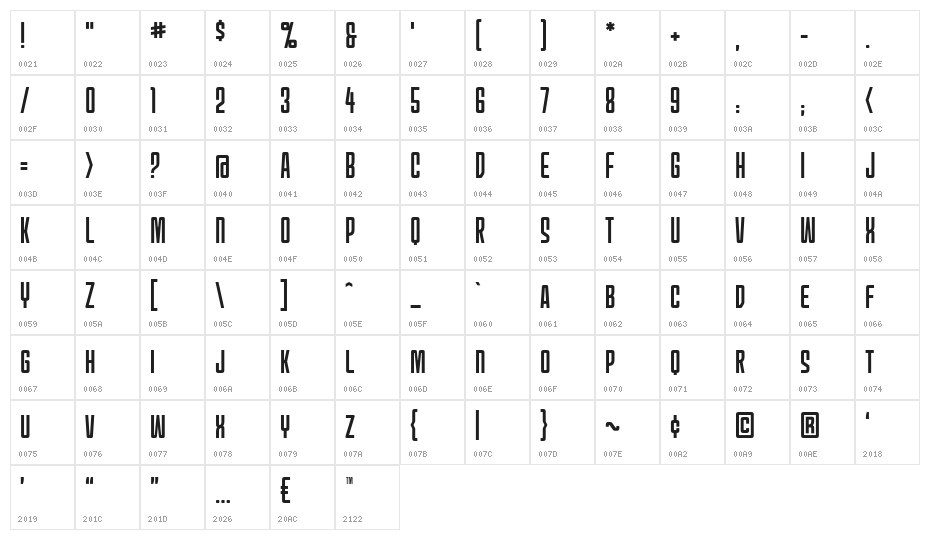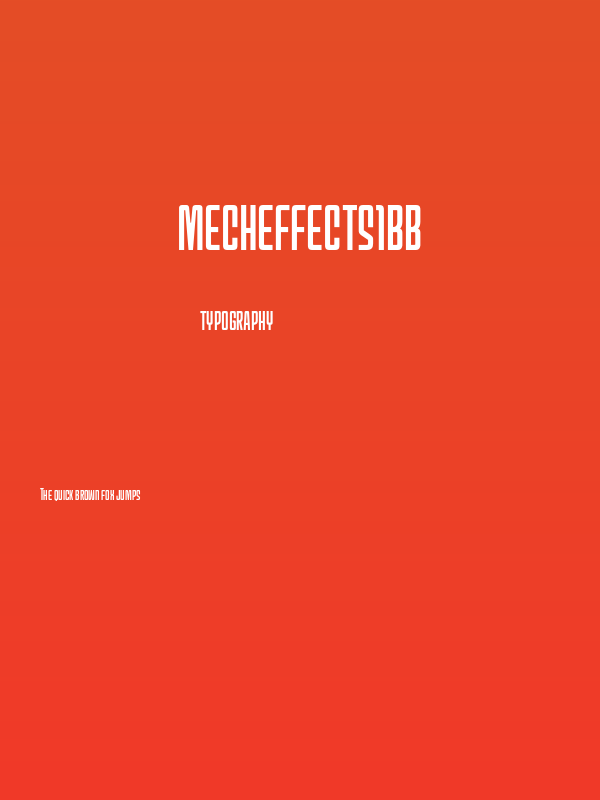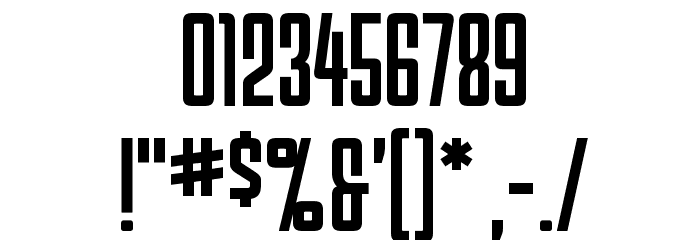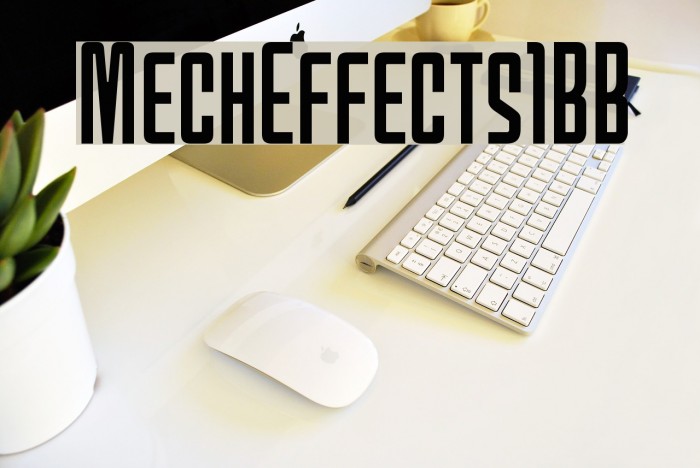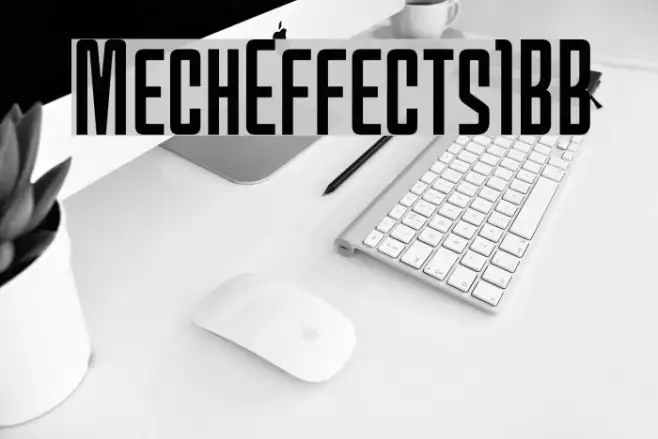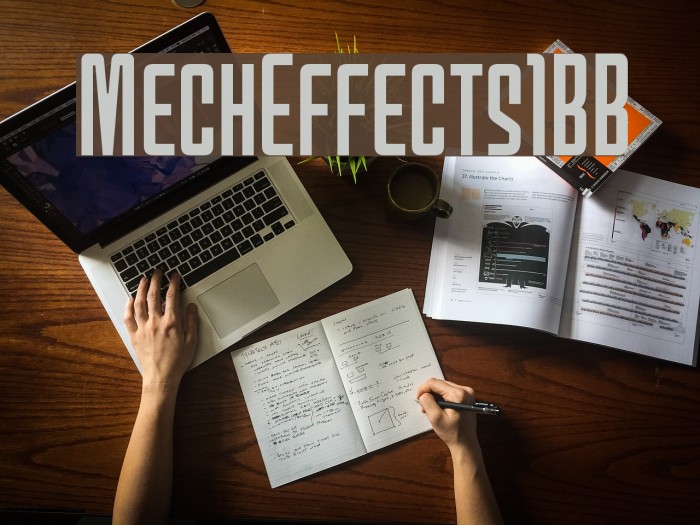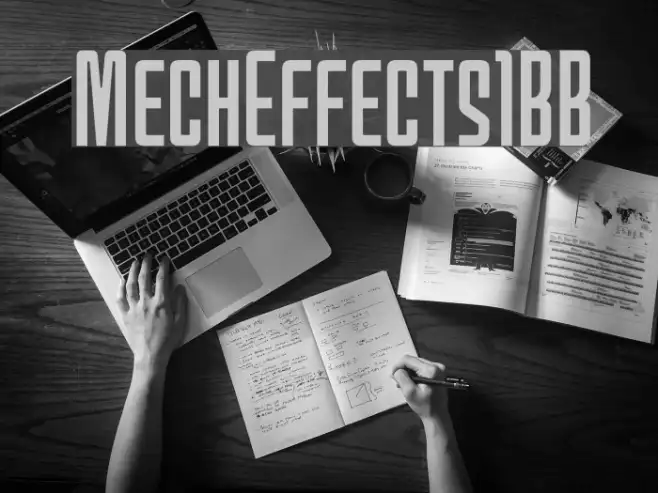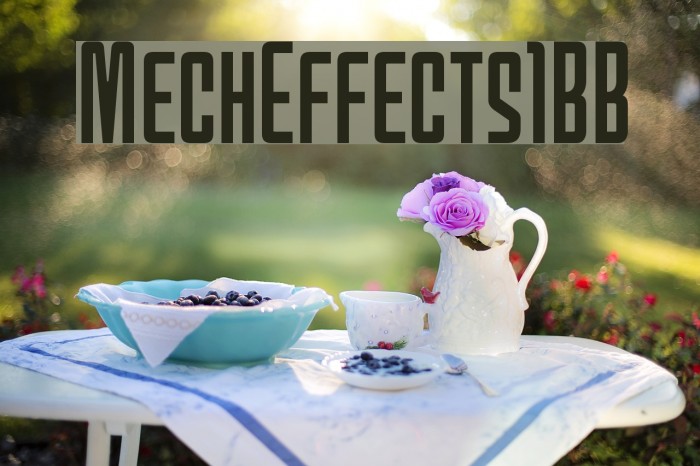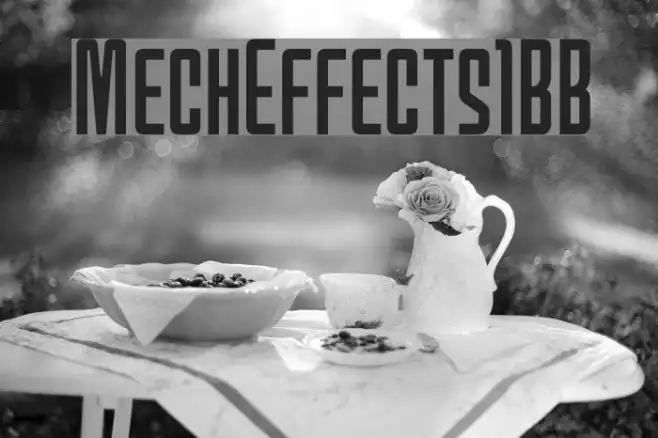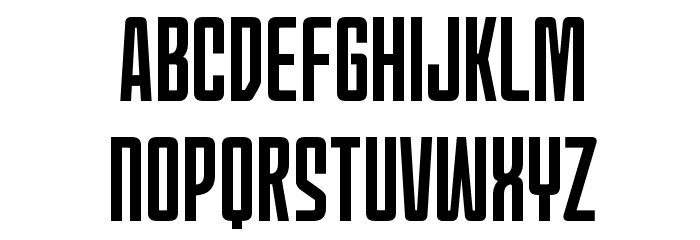
MechEffects1BB Font
MechEffects1BB Description
This font features a bold and modern design with a strong geometric structure. The characters are tall and narrow, giving them a condensed appearance. The strokes are consistent in width, providing a uniform look across all characters. The uppercase and lowercase letters maintain a similar height, enhancing the font's cohesive style. The numerals are equally bold and align well with the overall design. Special characters are included, matching the font's robust and industrial aesthetic. This font is ideal for projects that require a strong visual impact.
| Proposed Projects | Ideal for headlines, posters, branding, and any design requiring a strong, impactful typeface. |